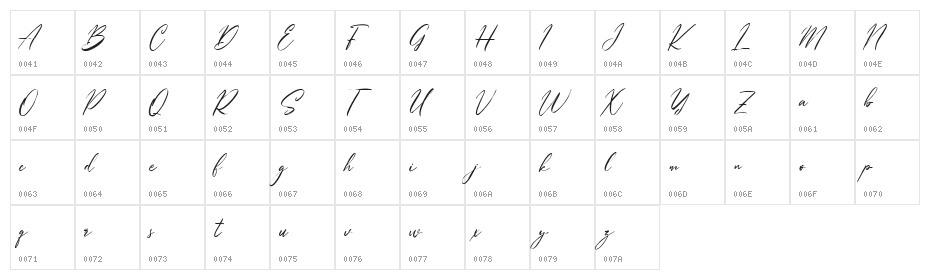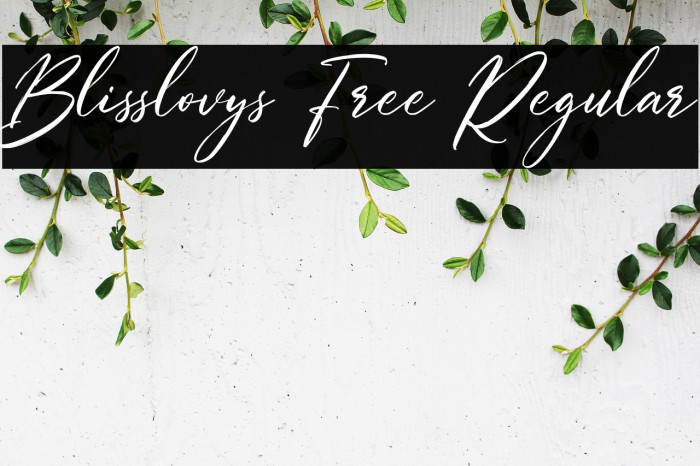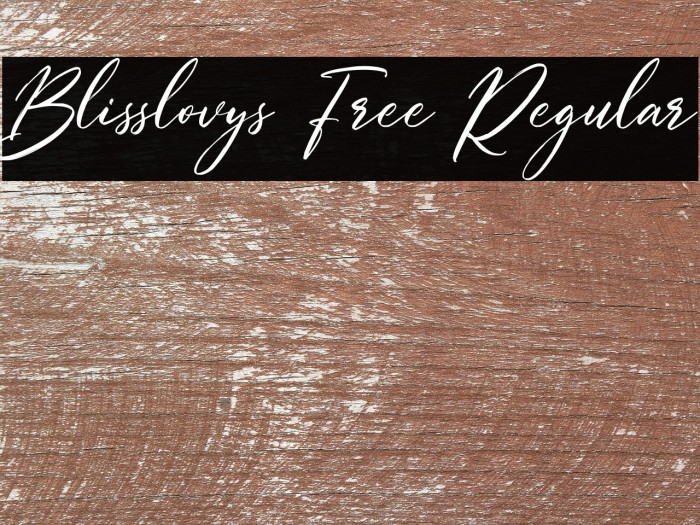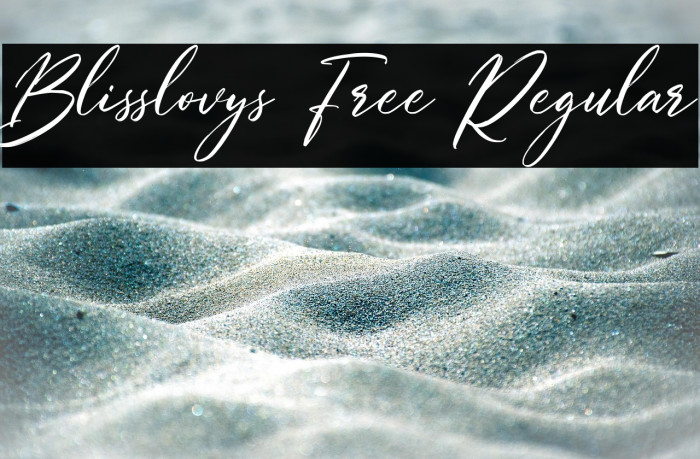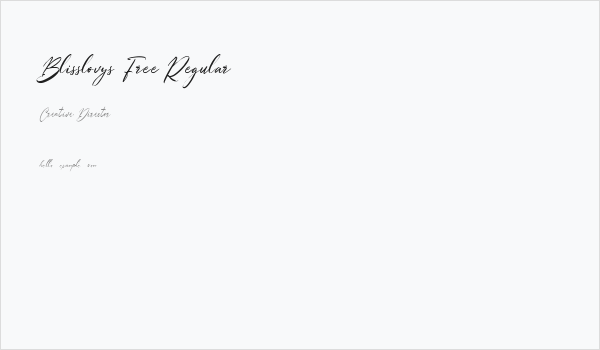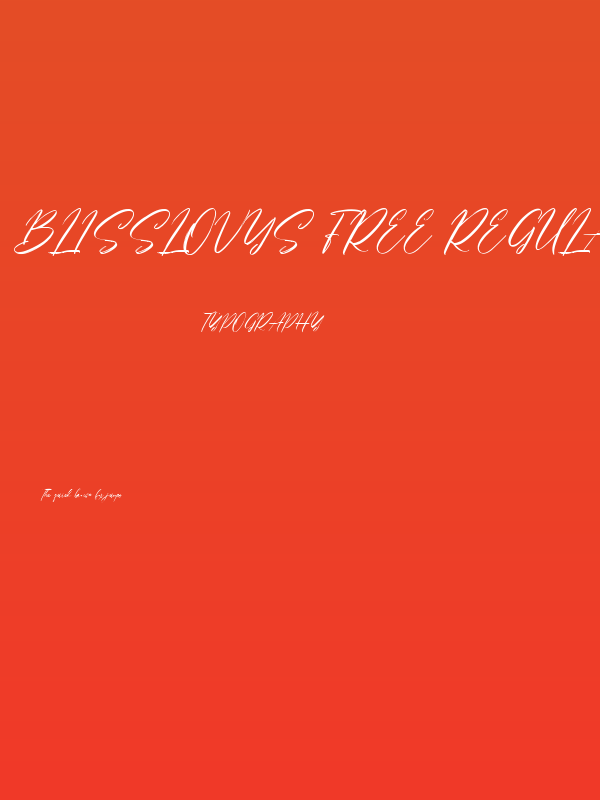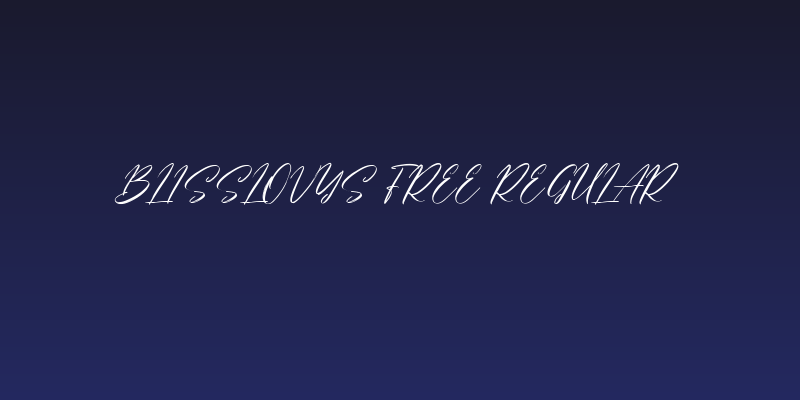
Blisslovys Free Regular Font
Blisslovys Free Regular Description
A flowing, elegant script font with a handwritten style, featuring smooth curves and a natural, organic feel.
| Proposed Projects | Wedding invitations, greeting cards, branding. |